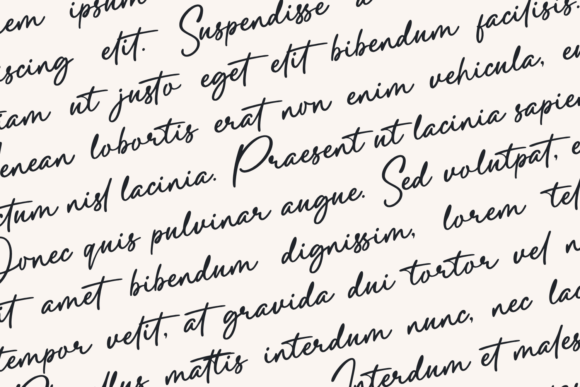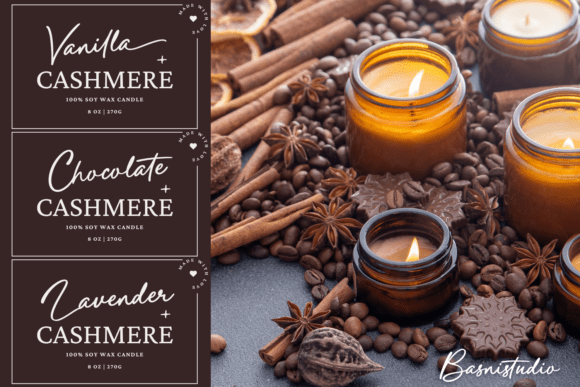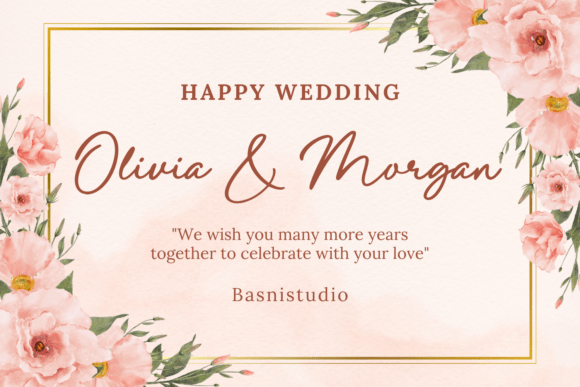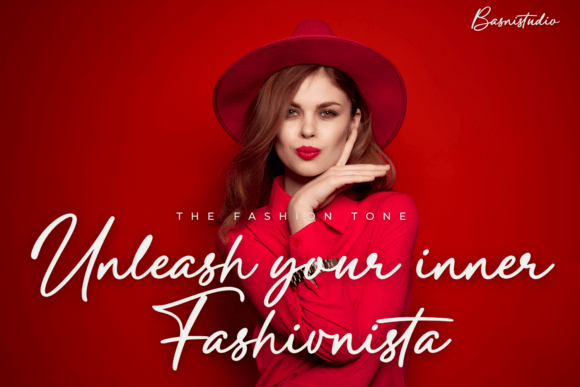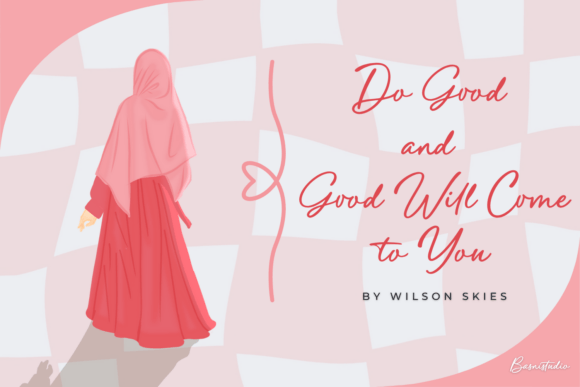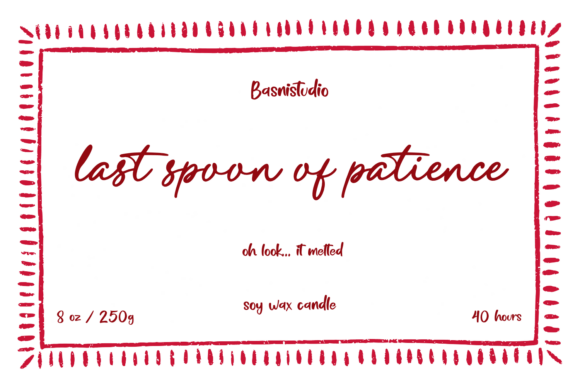
Introduction to Palloma Font
Palloma is a sleek and highly stylized signature script that captures the essence of sophisticated, fast-paced modern handwriting.
This typeface is a slender, high-contrast signature font Its defining feature is the extremely long, elegant swashes and the smooth, continuous flow between capital and lowercase letters, making it appear seamless and professionally executed.
Key Features of Palloma Font
Why Choose Palloma Font?